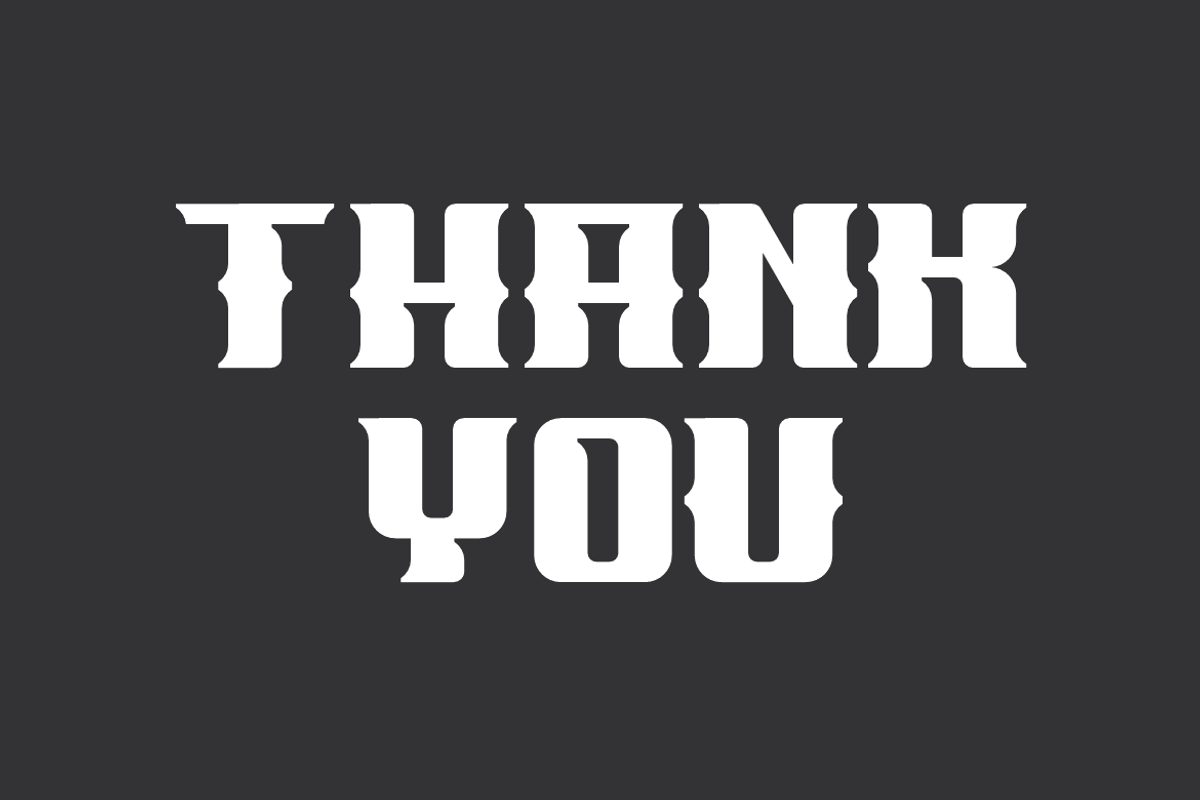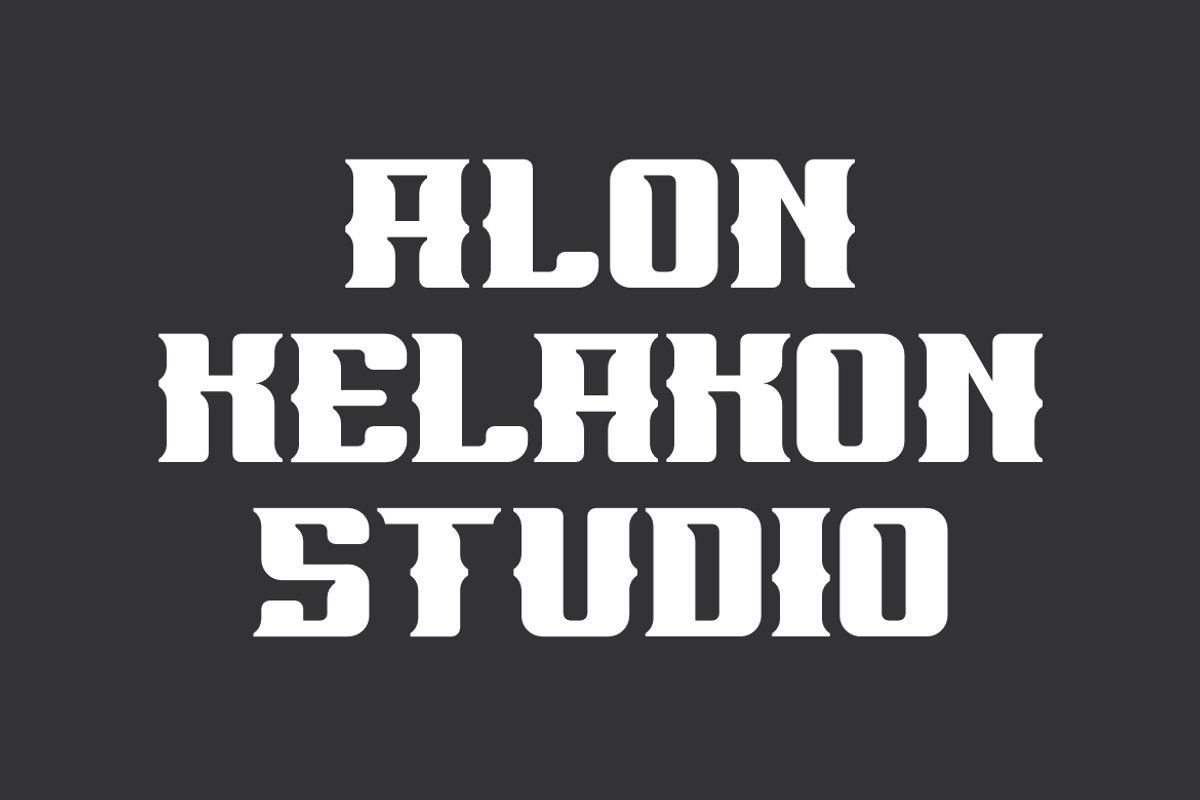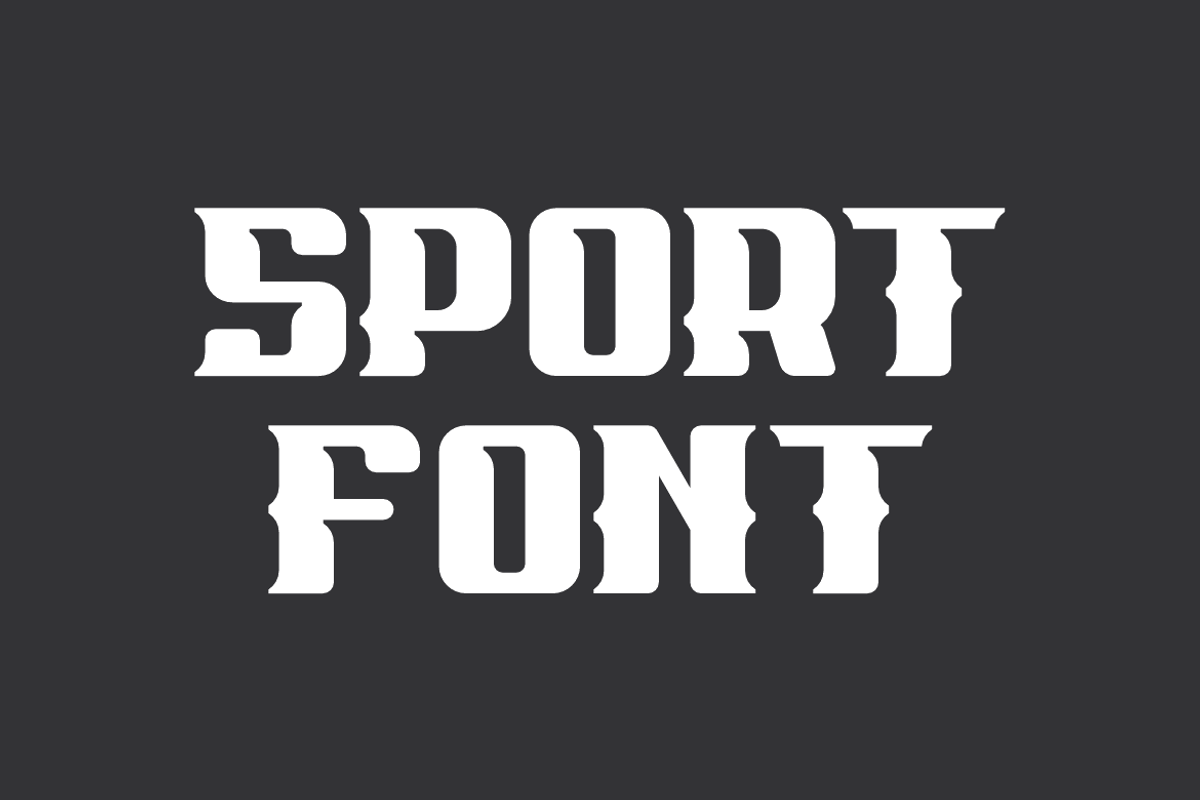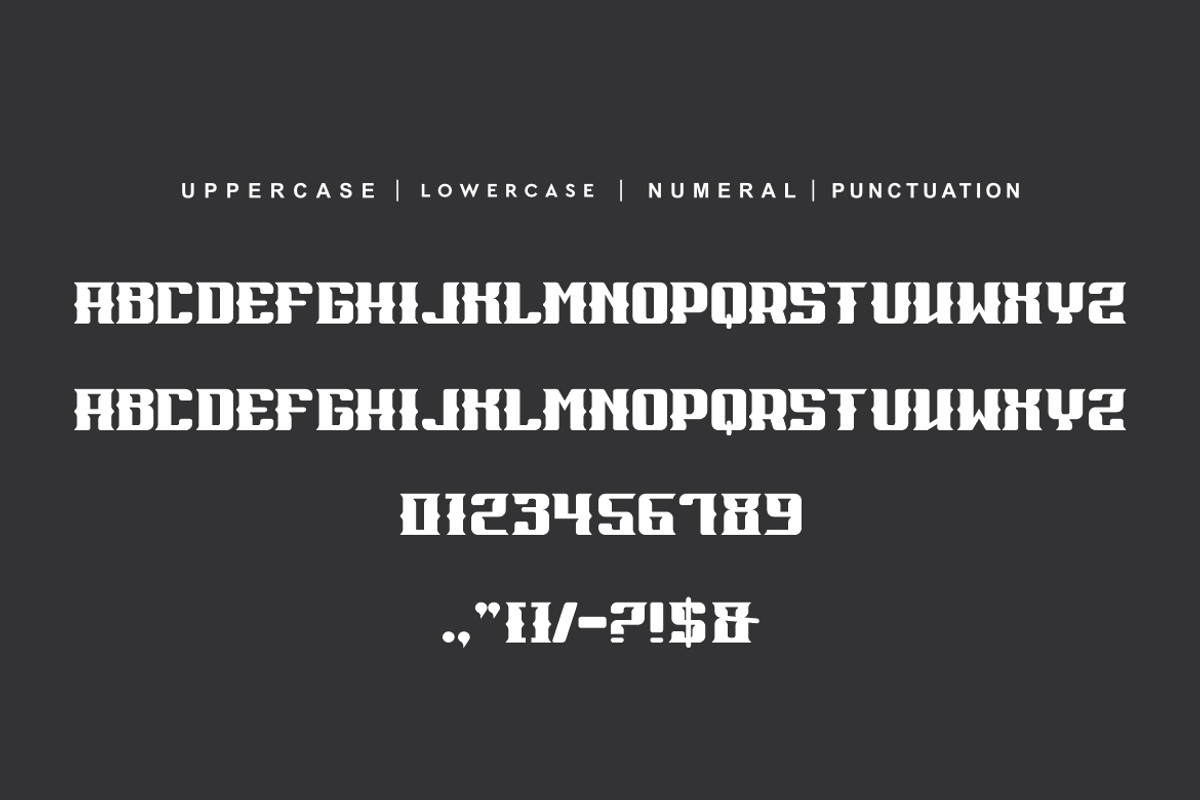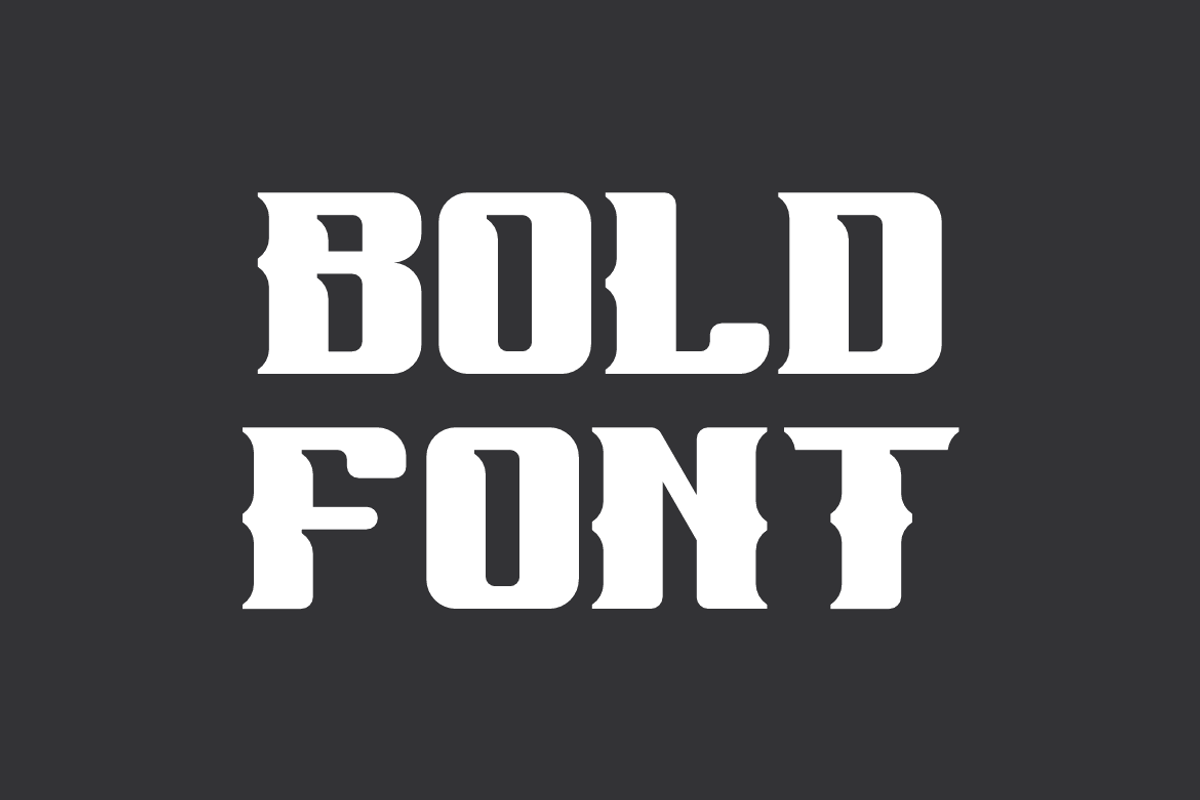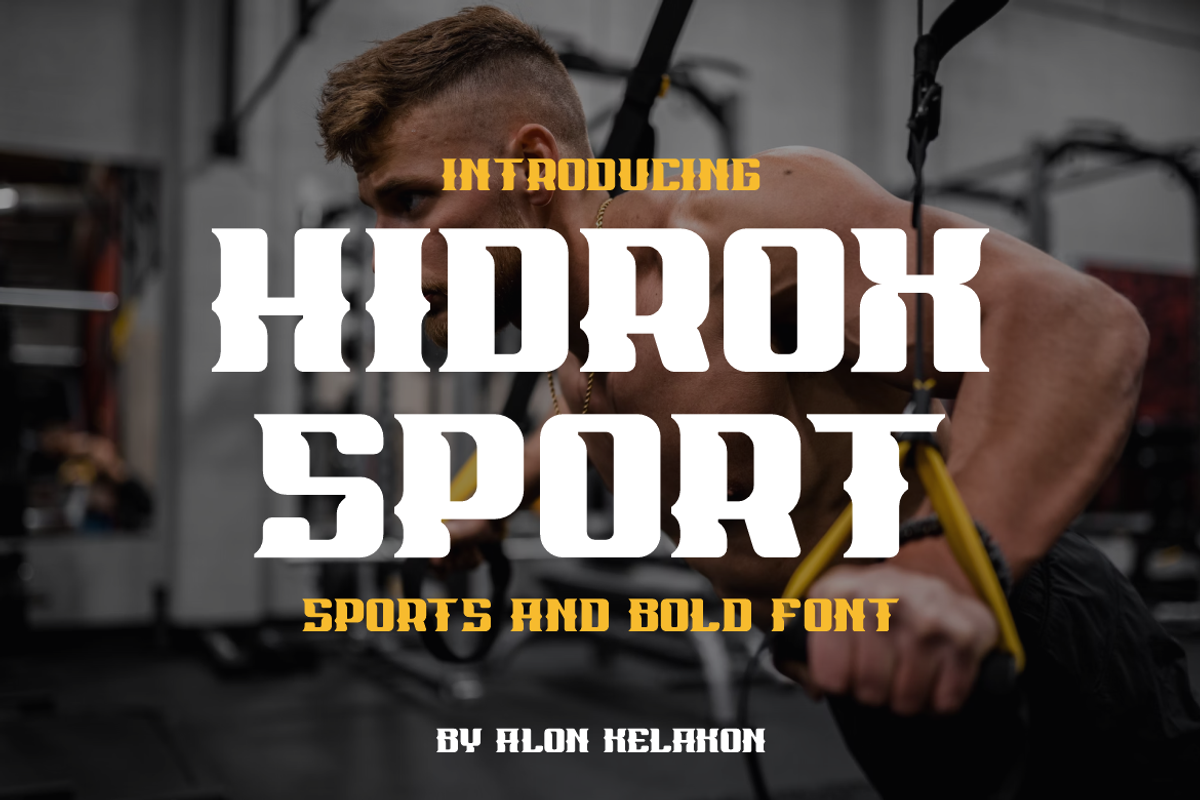
Hidrox Sport
Hidrox Sport Font is unique . Ready to use for your design like labeling, movie sceen, poster, movie title, gigs, album covers, logos, and much more.